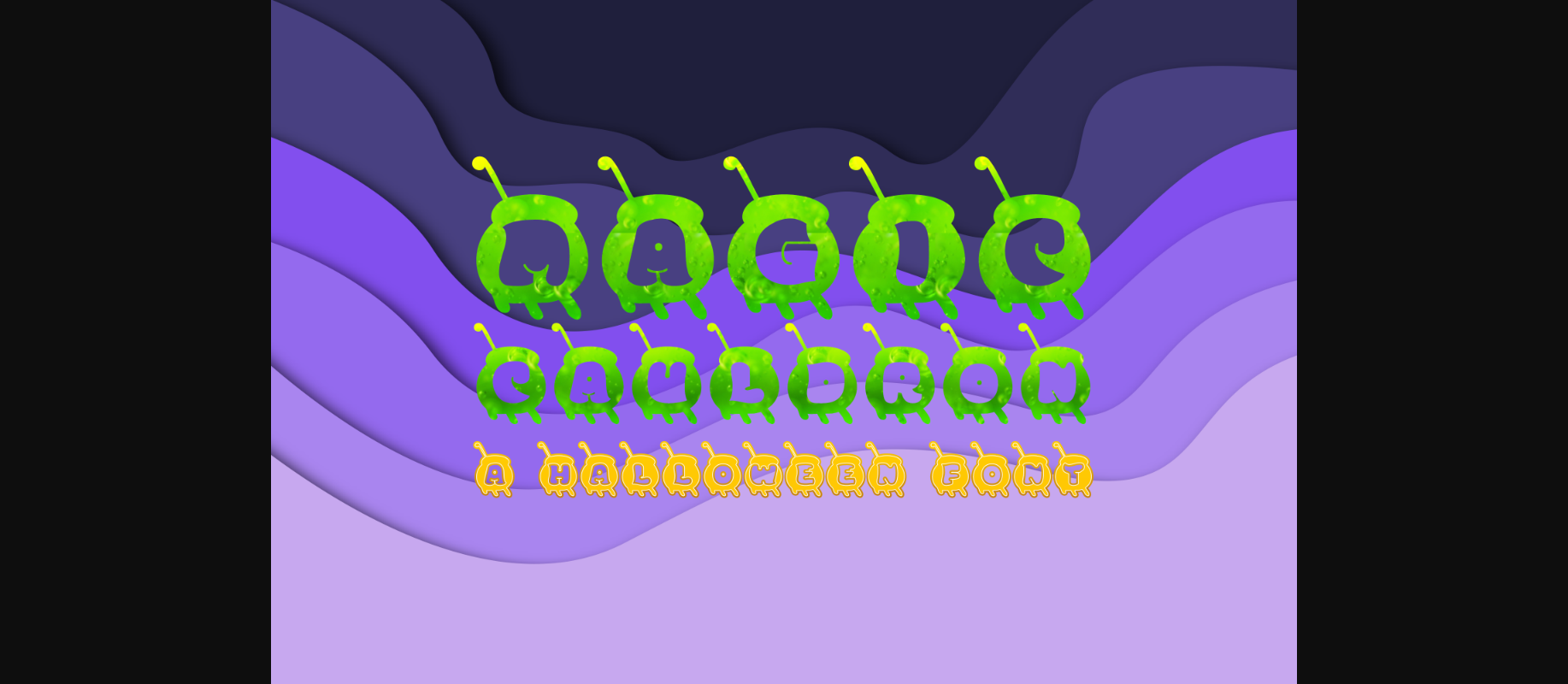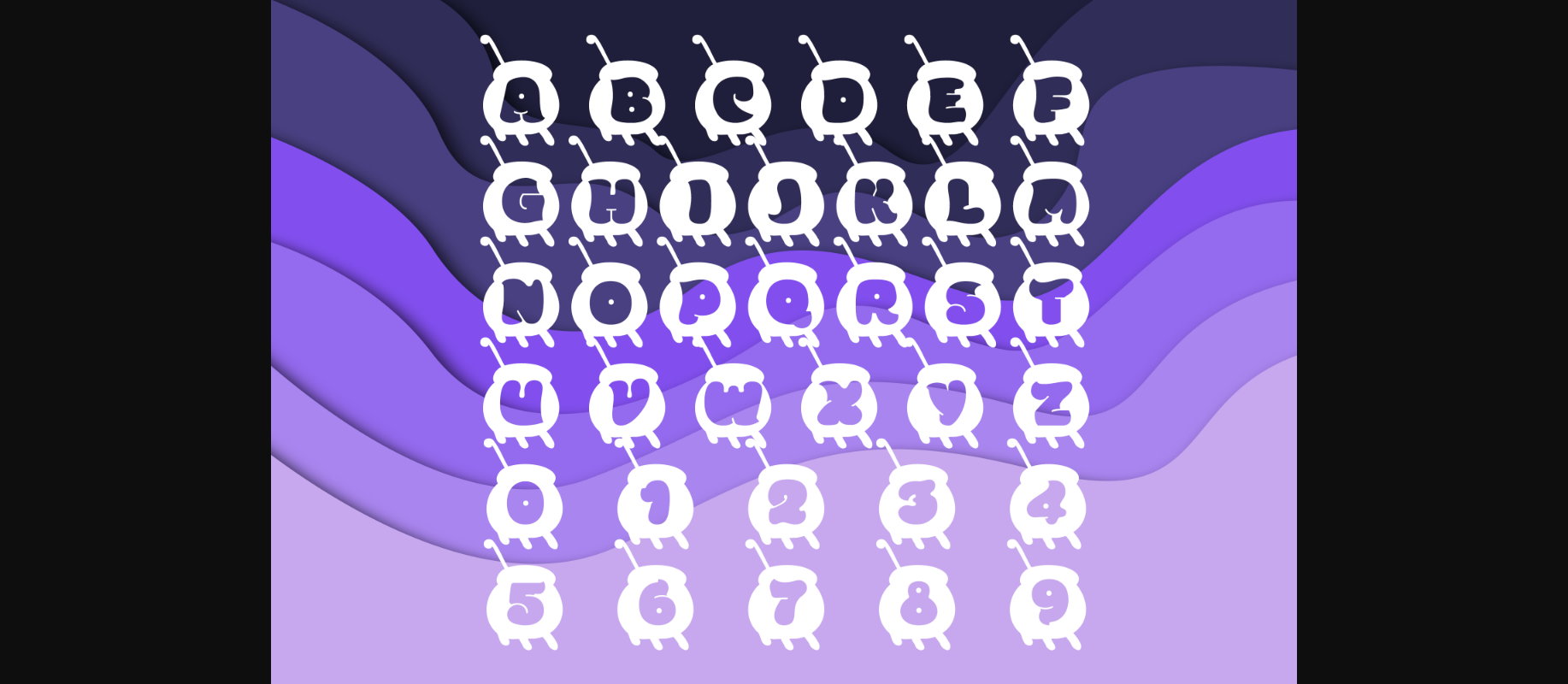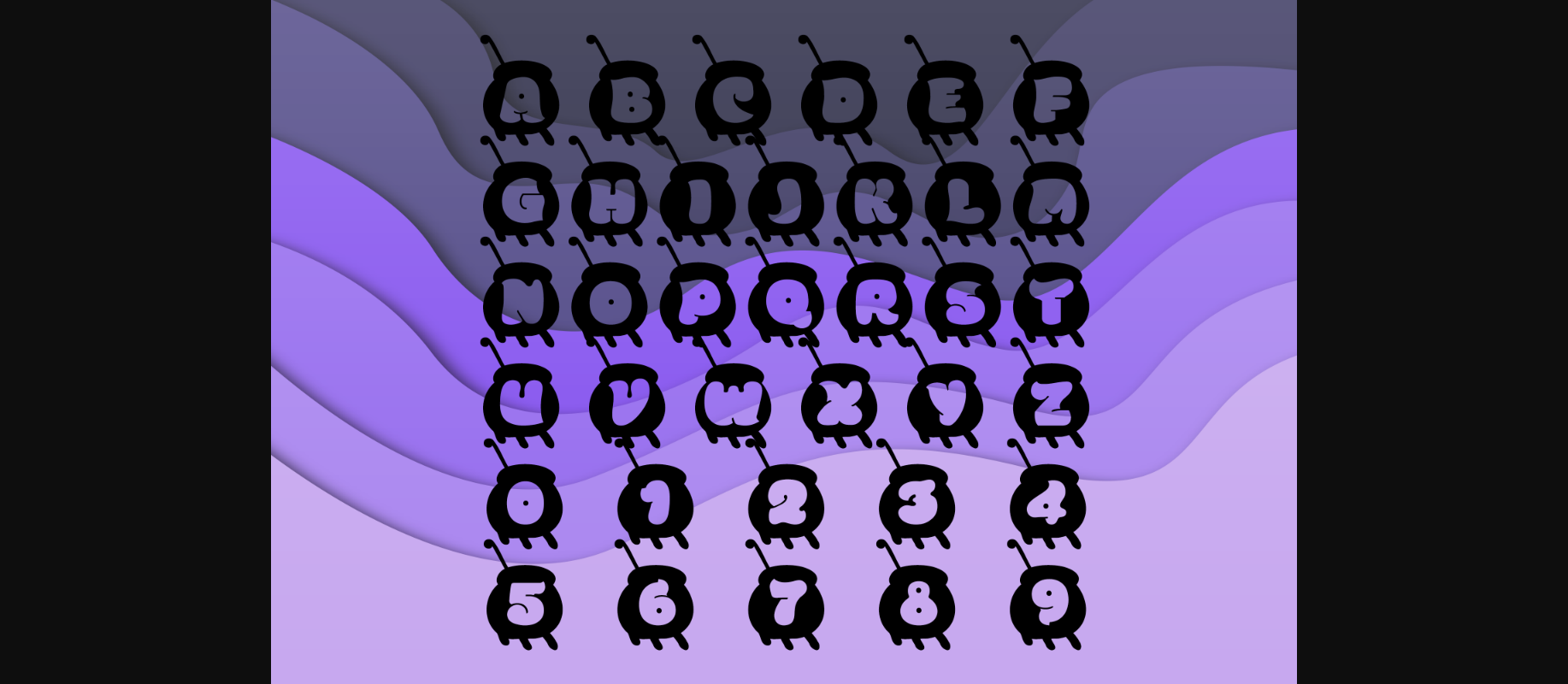
HomeDecorative FontsMagic Cauldron Font Decorative Fonts Magic Cauldron Font FacebookXPinterestWhatsApp 1 of 5 ... Magic Cauldron Font Poster 2... Magic Cauldron Font Poster 3... Magic Cauldron Font Poster 4... Magic Cauldron Font Poster 5... About Magic Cauldron Font Magic Cauldron is an incredibly cool and funky decorative font. Whether you use it for cartoon-related designs, children’s games, or just any creation that requires a lovely touch, this font will be an amazing choice. DOWNLOAD NOW People also explored Pitah Kembang Font Rephina Font Crowfeather Tuberosa Font Handmade California Font Fallen Leaves Font Genniro Font Cheonggye Font Bebold 372 0 TagsMagic Cauldron Font Previous articleMonogram Clara FontNext articleSpider Monogram Font LEAVE A REPLY Cancel reply Comment: Please enter your comment! Name:* Please enter your name here Email:* You have entered an incorrect email address! Please enter your email address here Website: Save my name, email, and website in this browser for the next time I comment. Personal Use Free Abingdon Personal Use Free Read more about this font Crellia Script Personal Use Free Read more about this font Lollipop Melody Personal Use Free Read more about this font Doriss Girls Family Personal Use Free Read more about this font BLOG How to Cut Any Font on Cricut: Convert a Font to SVG (Free) Turn any font into a clean SVG so it cuts crisp on Cricut - a quick 3-step workflow using a free font-to-SVG tool. Best Fonts for T-Shirt Design – Top 2025 Picks Exploring Font Trends 5 Fonts That Will Dominate Design Trends in 2026